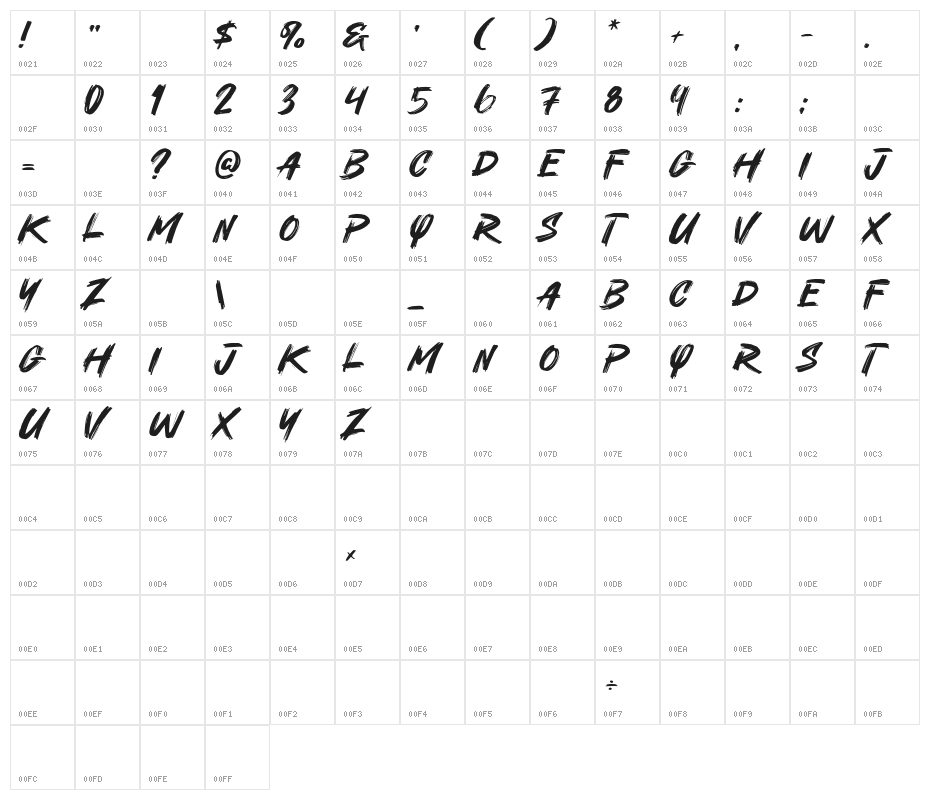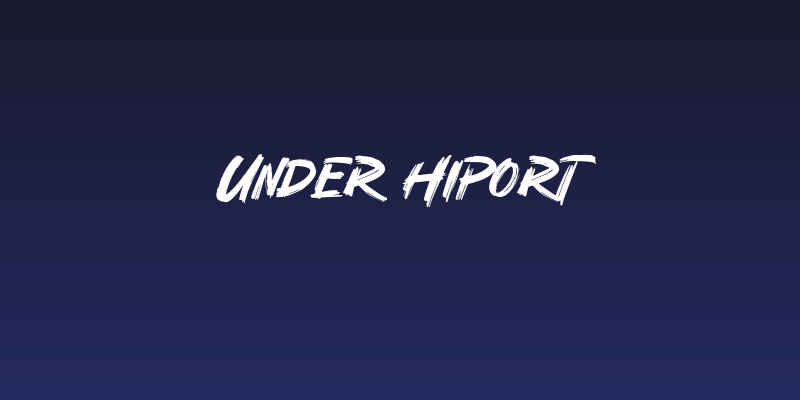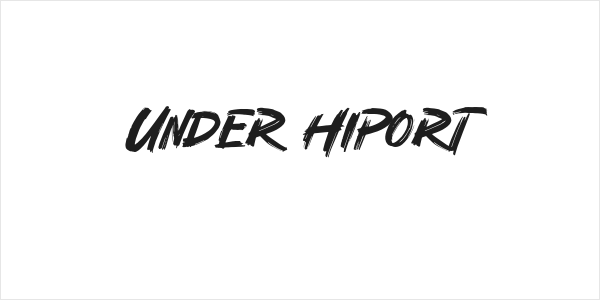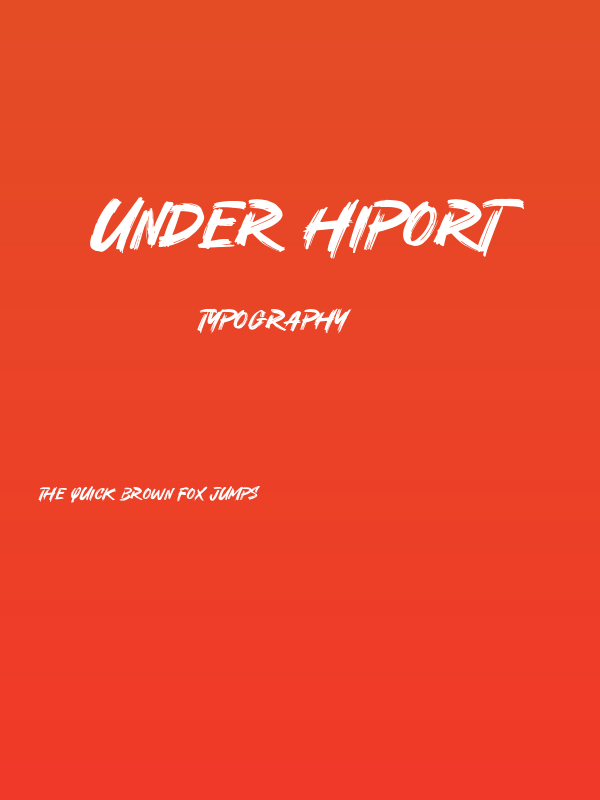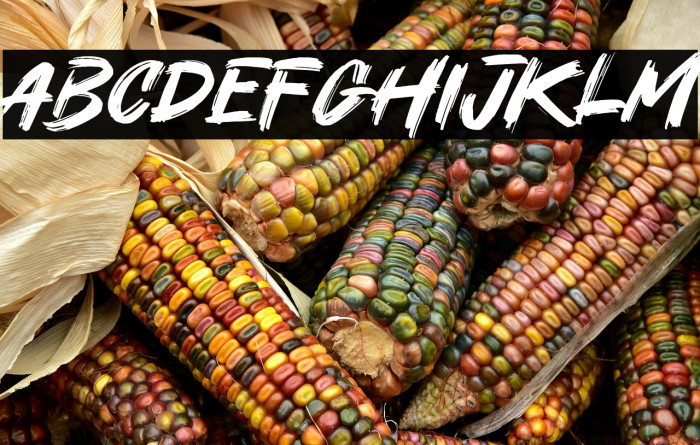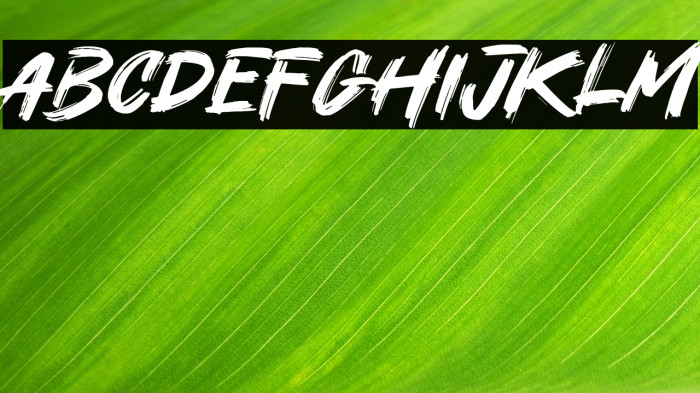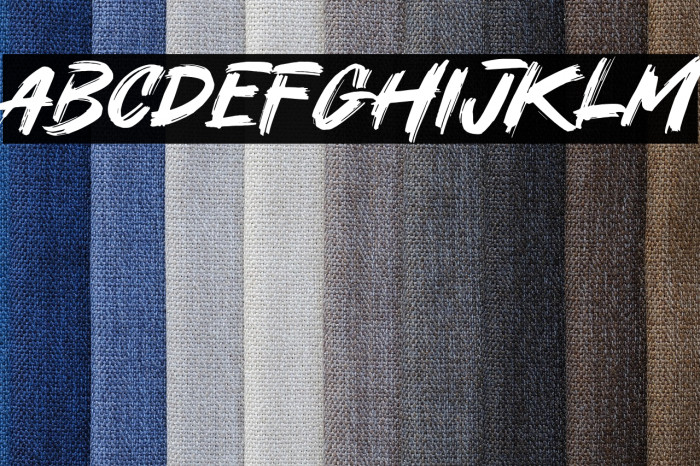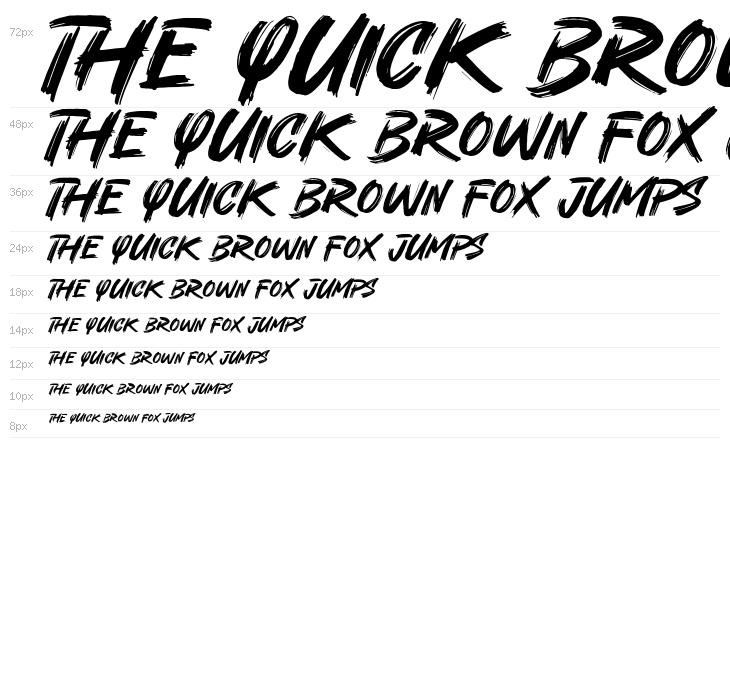
Under Hiport Font
Under Hiport Description
This font features a bold, energetic brush style with dynamic strokes that convey a sense of movement and intensity. The characters are crafted with a hand-painted aesthetic, giving them a raw and expressive appearance. The uppercase and lowercase letters maintain a consistent style, with sharp angles and varying stroke widths that add to the font's dramatic flair. Numbers and special characters are equally bold, ensuring a cohesive look across all text elements. This font is ideal for projects that require a strong visual impact and a sense of urgency or excitement.
| Proposed Projects | Ideal for posters, album covers, sports branding, and any design needing a bold, expressive touch. |